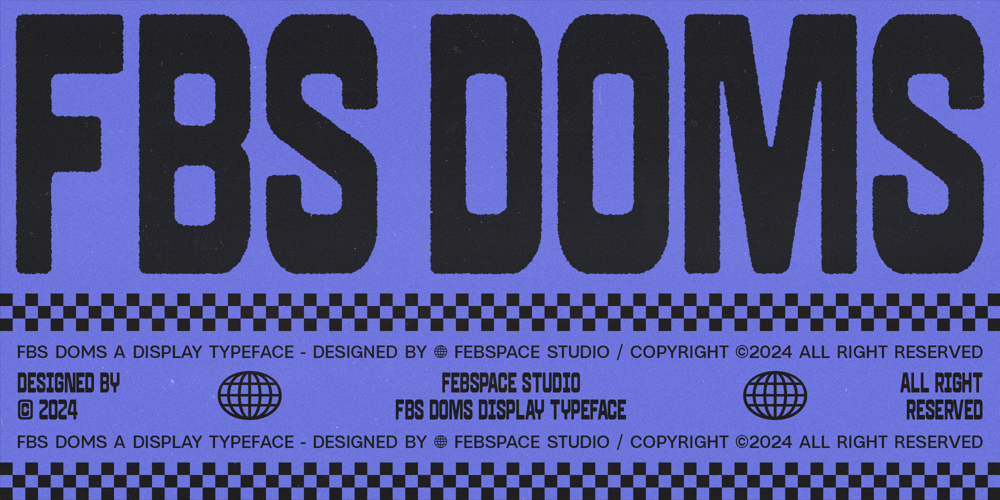
FBS Doms Font Family was designed by Febri Riansah and published by Febspace Studio. FBS Doms contains 3 styles and family package options. FBS DOMS is a versatile display font with 3 unique styles: Regular,Soft, and Rugged. Designed to elevate creative projects, this fontoffers bold and adaptable characteristics. Regular delivers aclean and modern look, Soft adds a friendly and smooth touch,while Rugged exudes a raw, edgy vibe. Perfect for poster designsthat demand attention or band merchandise with a striking,rebellious feel, FBS DOMS ensures your message stands out andleaves a lasting impression. Designed by Febspace Studio ©2024.